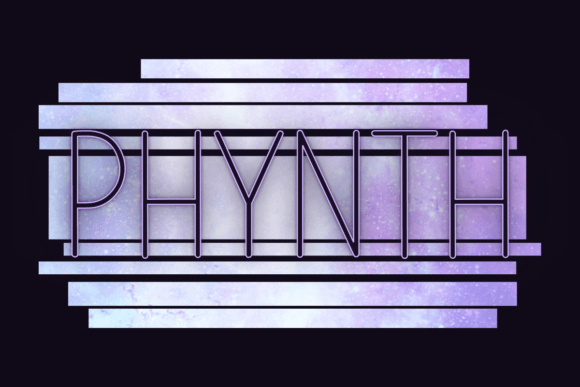
Unleash the Power of Clean and Concise Communication with Phynth: The Font of Clarity and Simplicity
In a world flooded with visual clutter and overwhelming information, simplicity has become a rare gem. Embrace the elegance of Phynth font, a sans-serif masterpiece crafted to bring clarity and sophistication to your written expression. With its sharp, geometric lines and uniform letterforms, Phynth ensures effortless legibility, allowing your messages to shine through without distraction.
Phynth is more than just a font; it's a gateway to a world of clean aesthetics and modern design. Whether you're crafting captivating logos, compelling editorials, or engaging digital content, Phynth empowers you to communicate with impact and leave a lasting impression. Its understated style exudes a sense of sophistication, elevating your projects to new heights of professionalism.
Experience the Versatility of Phynth: A Font for Every Occasion
Phynth isn't confined to a single realm of design; its versatility knows no bounds. Its clean lines and minimalist aesthetic seamlessly blend into a myriad of creative endeavors. Whether you're designing sleek logos, crafting professional reports, or creating visually appealing social media posts, Phynth adapts effortlessly to your unique vision.
Its adaptability extends to both personal and professional realms. Phynth lends a touch of elegance to personal projects, such as invitations, greeting cards, and photo albums, transforming them into treasured keepsakes. In the business world, Phynth shines in presentations, brochures, and marketing materials, conveying a sense of credibility and trustworthiness.
Ignite Your Creativity with Phynth: A Font That Inspires
Phynth isn't just a font; it's an inspiration catalyst, igniting your creativity and unlocking your design potential. Let its clean lines and minimalist aesthetic guide you towards innovative ideas and striking visual expressions. Phynth empowers you to break free from the mundane, embrace the extraordinary, and leave an indelible mark on your audience.
With Phynth as your creative companion, you'll discover a newfound joy in design. Its simplicity encourages experimentation, allowing you to explore new color palettes, layouts, and compositions without overwhelming your visual landscape. Phynth is the perfect canvas for your boundless imagination, enabling you to create designs that resonate with your audience and leave them captivated.